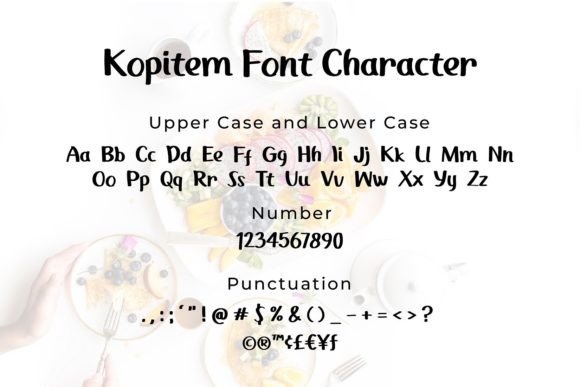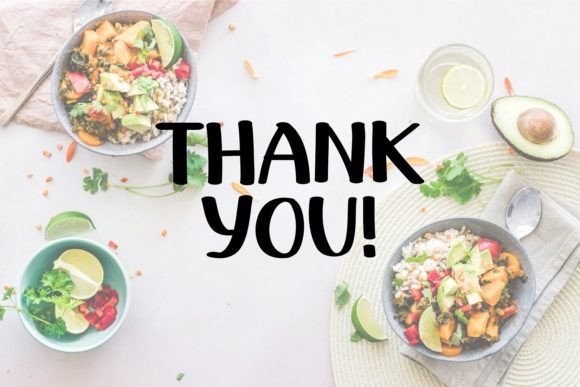
Introduction to Kopitem Font Font
Fonts play a crucial role in design, and the Kopitem Font font is a typeface that brings both character and versatility to any project. Whether you’re working on a branding project, a website, or a print design, the Kopitem Font font offers a unique style that can elevate your work.
Introducing Kopitem – Sans Handwritten Font Kopitem is a Sans Handwritten font.
Perfect for branding projects, logos, wedding designs, social media posts, advertisements, product packaging, product designs, labels, photography, watermarks, invitations, stationery, and any projects that need handwriting taste .
Key Features of Kopitem Font Font
Why Choose Kopitem Font Font?
The Kopitem Font font is more than just a typeface – it’s a design tool that helps you communicate your message with style and clarity. Its unique character set and versatile design make it suitable for a wide range of applications, from elegant invitations to bold headlines.
With its carefully crafted letterforms and balanced proportions, the Kopitem Font font ensures readability and visual appeal across all mediums.
What makes Kopitem Font font special?
The Kopitem Font font stands out with its unique design, exceptional readability, and versatility across various design applications.